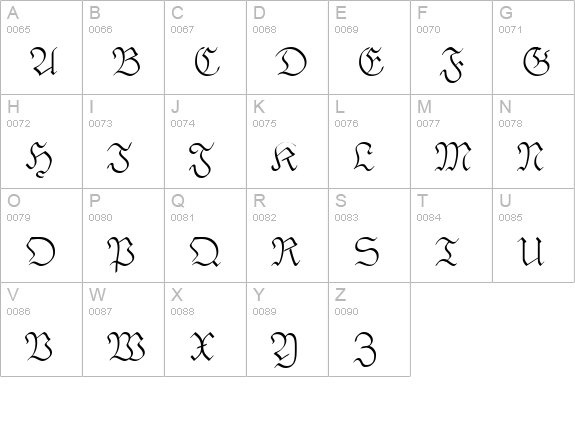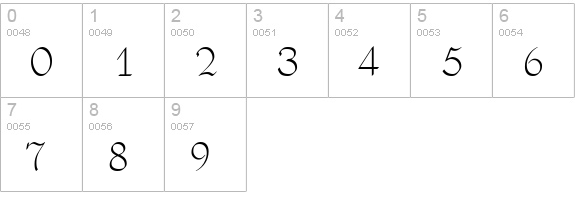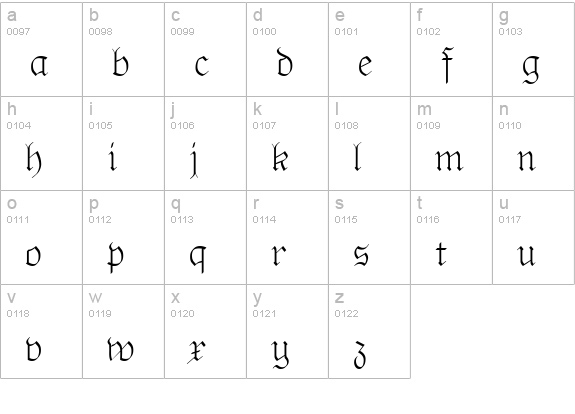
PhederFrackThin Font Details
Introducing PhederFrackThin, a beautifully crafted font designed to bring elegance and sophistication to your projects. This exquisite typeface embodies a unique blend of modernity and classic charm, making it the perfect choice for any design that requires a touch of refinement. PhederFrackThin boasts a delicate yet sturdy structure, with slender letterforms that gracefully dance across the page. Its thin strokes and subtle curves effortlessly create a sense of grace and femininity, while maintaining exceptional legibility and readability. Whether used in branding, invitations, editorial layouts, or any other creative endeavor, this font is sure to captivate and leave a lasting impression. But that's not all - PhederFrackThin is not only visually stunning, but it also comes with a fantastic bonus: it is completely free! That's right, this exceptional font is freely available to download at FontsMarket.com, making it accessible to designers and enthusiasts alike. Say goodbye to budget constraints and hello to limitless creativity with PhederFrackThin. With its wide range of characters, including uppercase and lowercase letters, numerals, punctuation marks, and multilingual support, this font offers endless possibilities for your designs. Whether you're looking to create elegant wedding invitations or sophisticated branding materials, PhederFrackThin has got you covered. So why wait? Elevate your designs to new heights with PhederFrackThin, the font that effortlessly combines grace, style, and flexibility. Download it for free at FontsMarket.com and let your creativity soar.